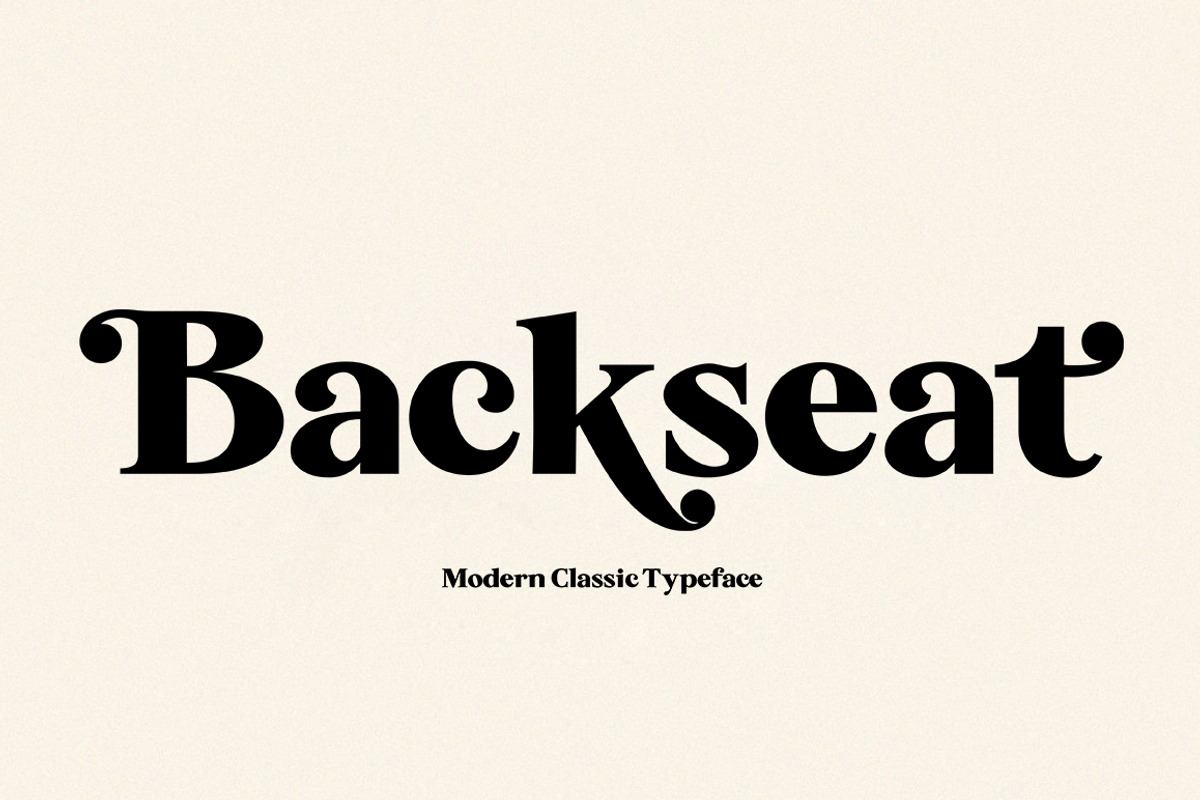
Backseat - Serif Typeface Font Free Download is a bold and stylish serif font with a modern twist, designed to make your headlines and branding stand out. With its strong presence, elegant curves, and high contrast strokes, this typeface is perfect for editorial layouts, fashion branding, logos, posters, and packaging.
Backseat balances vintage charm with contemporary design, offering a versatile and timeless look that works beautifully across both digital and print projects. Its distinctive character shapes give your text a luxurious, confident feel.